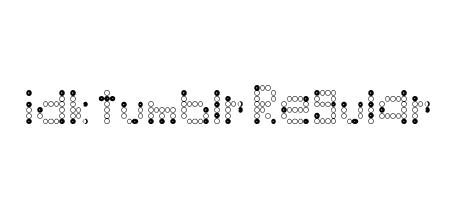
IDK Tumblr
By Peytie M
Category  Sans-serif, Modular, Digital, Digital Clock, Monospaced
Idk Tumblr Regular is a playful, pixelated font. Its chunky, dot-matrix style evokes early computer graphics and retro arcade games. The letters are formed by a grid of black and white circles, lending a slightly imperfect, handmade charm to the otherwise clean design. The overall effect is nostalgic and slightly quirky.